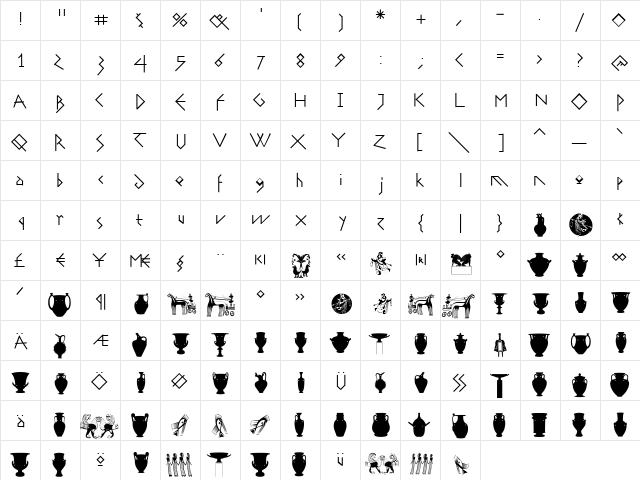
GreeKish Regular
Design Context for GreeKish Typeface
GreeKish is a composed and adaptable typeface that performs quietly and consistently across a wide range of design contexts.